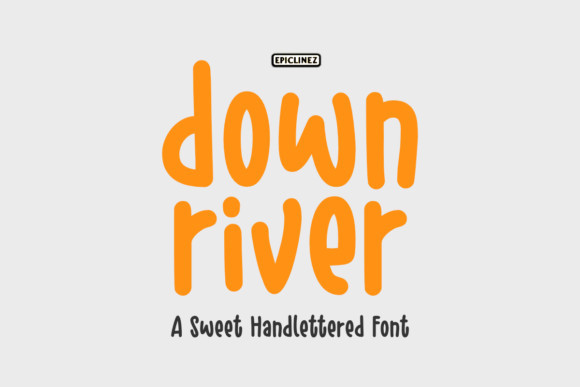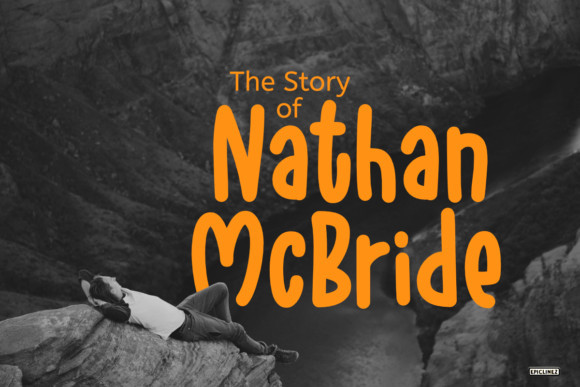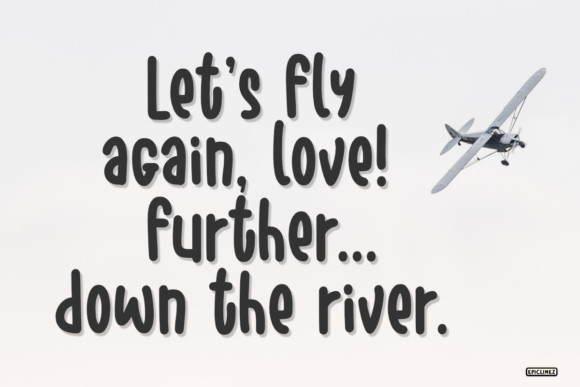
Down River Font
Down River is a sweet and stunning handwritten font. Whether you’re looking for fonts for Instagram or calligraphy scripts for DIY projects, this font will turn any creative idea into a true piece of art!